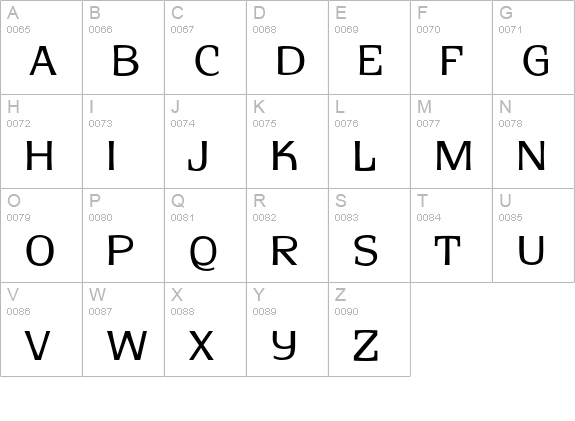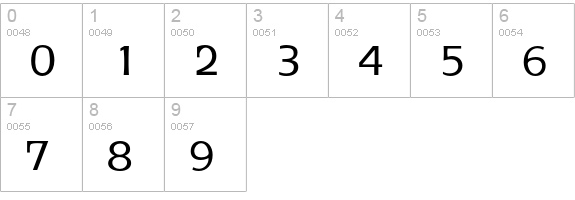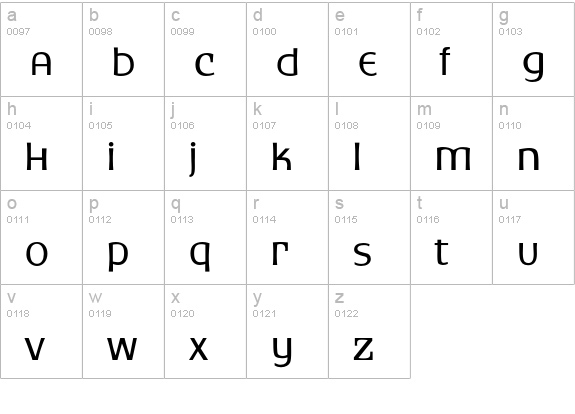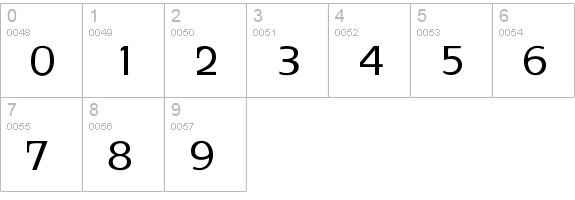
Albany Font Details
Albany font is a timeless and versatile typeface that exudes elegance and sophistication. Its classic serif style conveys a sense of tradition and authority, making it perfect for a wide range of design projects. The graceful curves and strong lines of Albany font create a refined and polished appearance that commands attention. One of the best things about Albany font is that it is available for free! You can easily download this stunning typeface at FontsMarket.com and enhance your designs with its exquisite beauty. Whether you are creating invitations, logos, posters, or any other visual content, Albany font will add a touch of class and professionalism to your work. Don't miss out on the opportunity to use this exceptional font in your projects. Download Albany font today and elevate your designs to new heights of sophistication and style.